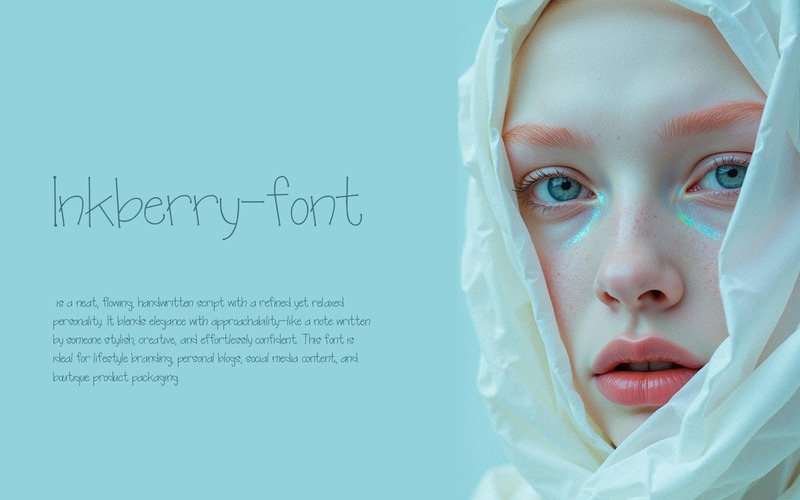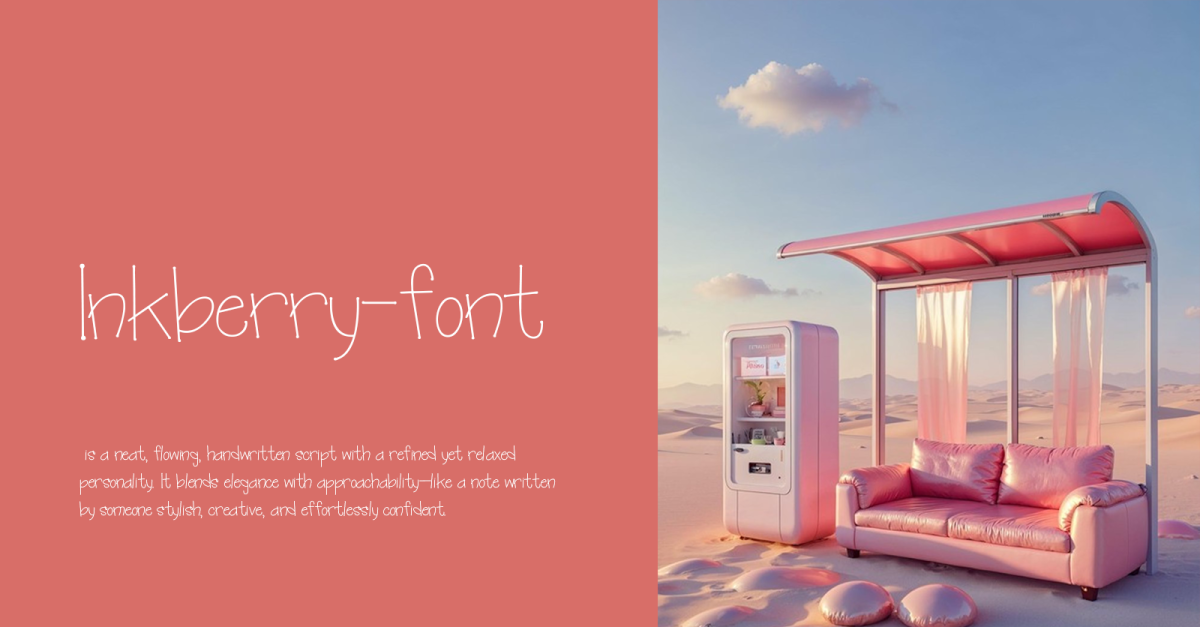
Meet Inkberry a script font with soul, style, and subtle storytelling.
Its hand-drawn elegance makes it the perfect choice for branding that’s personal and poetic.
From boutique logos to heartfelt posts, it adds a human touch to every line.
Smooth, flowing, and effortlessly stylish.
Inkberry: Write with feeling.